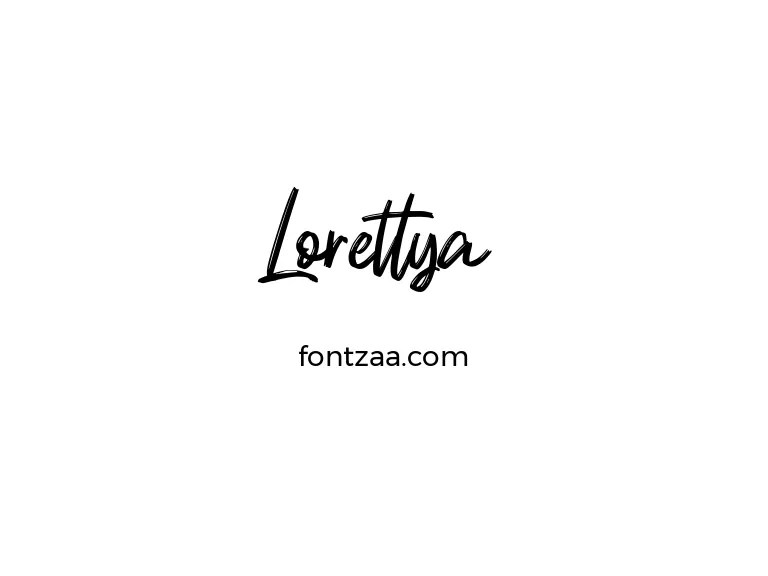
Lorettya Font introduces a elegant typographic style that can give creative projects a more individual appearance. Lorettya Font stands out through its individual shapes and can become an important visual element in creative display work. The typeface can change considerably depending on tracking, scale, alignment, background and surrounding imagery. Different color combinations can make the same font feel subtle, energetic, premium or highly decorative. Testing several arrangements before choosing the final version can reveal which characteristics of the typeface work best. Designers may explore it across invitations, wedding stationery, signatures, quotes and elegant branding, depending on the tone and requirements of the project. Keeping secondary typography simple often allows the distinctive qualities of the main font to remain more visible. Previewing the final layout on both large and small screens helps identify spacing and readability problems early. Source metadata currently associates the font with Weape Studio. Current license information is shown as Free for personal use; checking the original documentation is recommended before client or commercial work. Experimenting directly in the intended design is usually the best way to judge whether the typeface suits the project.
Lorettya Font brings a elegant personality to typography and gives designers a flexible starting point for headlines, branding and promotional layouts. Different color combinations can make the same font feel subtle, energetic, premium or highly decorative. Its letter shapes become especially noticeable at larger sizes, where spacing and proportions can be explored more clearly. The typeface can change considerably depending on tracking, scale, alignment, background and surrounding imagery. Possible applications include invitations, wedding stationery, signatures, quotes and elegant branding. A clean serif or sans serif companion can handle smaller text while this font remains focused on headlines and key messages. Keeping secondary typography simple often allows the distinctive qualities of the main font to remain more visible. Source metadata currently associates the font with Weape Studio. License details are currently listed as Free for personal use. Users should verify the supplied documentation before using the font in products or paid projects. Its final appearance will depend heavily on the surrounding colors, imagery, spacing and supporting typography.
With its distinctive letterforms, Lorettya Font can introduce a elegant character into digital and print projects. Testing several arrangements before choosing the final version can reveal which characteristics of the typeface work best. The typeface can change considerably depending on tracking, scale, alignment, background and surrounding imagery. Its letter shapes become especially noticeable at larger sizes, where spacing and proportions can be explored more clearly. The font can be considered for projects such as invitations, wedding stationery, signatures, quotes and elegant branding. Print and digital layouts may require different sizing and spacing, so testing the actual output dimensions is recommended. Previewing the final layout on both large and small screens helps identify spacing and readability problems early. Source metadata currently associates the font with Weape Studio. License details are currently listed as Free for personal use. Users should verify the supplied documentation before using the font in products or paid projects. Experimenting directly in the intended design is usually the best way to judge whether the typeface suits the project.
Lorettya Font Family
The Lorettya Font Family gives designers a flexible display option that can be adapted through changes in size, spacing, alignment and color. For projects that need typography with a stronger identity, Lorettya Font offers a elegant direction suited to font-family exploration. Different color combinations can make the same font feel subtle, energetic, premium or highly decorative. Its letter shapes become especially noticeable at larger sizes, where spacing and proportions can be explored more clearly. The font can work as the primary visual element in a minimal layout or as part of a more detailed composition. Creative uses may range from invitations, wedding stationery, signatures, quotes and elegant branding, with different results depending on scale and layout. Keeping secondary typography simple often allows the distinctive qualities of the main font to remain more visible. Previewing the final layout on both large and small screens helps identify spacing and readability problems early. The designer or publisher information available for this typeface is Weape Studio. The listed license is Free for personal use, although users should still review the original font package before commercial use. Its final appearance will depend heavily on the surrounding colors, imagery, spacing and supporting typography.
| Designer | Weape Studio |
Lorettya Font for Logo and Branding Design
The visual character of Lorettya Font makes it an interesting choice for designers working on logos, wordmarks and visual identity systems. The typeface can change considerably depending on tracking, scale, alignment, background and surrounding imagery. The font can work as the primary visual element in a minimal layout or as part of a more detailed composition. Different color combinations can make the same font feel subtle, energetic, premium or highly decorative. Designers may explore it across invitations, wedding stationery, signatures, quotes and elegant branding, depending on the tone and requirements of the project. Designers should evaluate the typeface inside the real project because a standalone preview cannot show every possible visual combination. For layouts containing longer information, pairing it with a simpler supporting typeface can improve readability and hierarchy. The designer or publisher information available for this typeface is Weape Studio. Current license information is shown as Free for personal use; checking the original documentation is recommended before client or commercial work. A few quick layout variations can help determine where the font creates the strongest visual result.
For projects that need typography with a stronger identity, Lorettya Font offers a elegant direction suited to discovering alternatives and related typography. Its letter shapes become especially noticeable at larger sizes, where spacing and proportions can be explored more clearly. Different color combinations can make the same font feel subtle, energetic, premium or highly decorative. The typeface can change considerably depending on tracking, scale, alignment, background and surrounding imagery. Possible applications include invitations, wedding stationery, signatures, quotes and elegant branding. Previewing the final layout on both large and small screens helps identify spacing and readability problems early. Designers should evaluate the typeface inside the real project because a standalone preview cannot show every possible visual combination. Source metadata currently associates the font with Weape Studio. Current license information is shown as Free for personal use; checking the original documentation is recommended before client or commercial work. Experimenting directly in the intended design is usually the best way to judge whether the typeface suits the project. Explore more typography on Fontzaa or browse the 100% Free Fonts collection.
Social Media Ideas With Lorettya Font
For projects that need typography with a stronger identity, Lorettya Font offers a elegant direction suited to posters, campaigns, thumbnails and promotional content. Its letter shapes become especially noticeable at larger sizes, where spacing and proportions can be explored more clearly. Different color combinations can make the same font feel subtle, energetic, premium or highly decorative. The typeface can change considerably depending on tracking, scale, alignment, background and surrounding imagery. Creative uses may range from invitations, wedding stationery, signatures, quotes and elegant branding, with different results depending on scale and layout. A clean serif or sans serif companion can handle smaller text while this font remains focused on headlines and key messages. Designers should evaluate the typeface inside the real project because a standalone preview cannot show every possible visual combination. According to the available font information, the typeface is associated with Weape Studio. The available licensing label is Free for personal use, but redistribution and commercial permissions should always be confirmed from the original source. The most effective treatment will vary by project, so designers should compare several versions before finalizing the artwork.
Where to Use Lorettya Font
With its distinctive letterforms, Lorettya Font can introduce a elegant character into practical ways designers can use the typeface. Its letter shapes become especially noticeable at larger sizes, where spacing and proportions can be explored more clearly. The typeface can change considerably depending on tracking, scale, alignment, background and surrounding imagery. The font can work as the primary visual element in a minimal layout or as part of a more detailed composition. Creative uses may range from invitations, wedding stationery, signatures, quotes and elegant branding, with different results depending on scale and layout. Keeping secondary typography simple often allows the distinctive qualities of the main font to remain more visible. Previewing the final layout on both large and small screens helps identify spacing and readability problems early. Source metadata currently associates the font with Weape Studio. The available licensing label is Free for personal use, but redistribution and commercial permissions should always be confirmed from the original source. Experimenting directly in the intended design is usually the best way to judge whether the typeface suits the project.
Tips for Better Results With Lorettya Font
Lorettya Font stands out through its individual shapes and can become an important visual element in spacing, contrast, scale and layout decisions. The typeface can change considerably depending on tracking, scale, alignment, background and surrounding imagery. Testing several arrangements before choosing the final version can reveal which characteristics of the typeface work best. The font can work as the primary visual element in a minimal layout or as part of a more detailed composition. Possible applications include invitations, wedding stationery, signatures, quotes and elegant branding. Designers should evaluate the typeface inside the real project because a standalone preview cannot show every possible visual combination. For layouts containing longer information, pairing it with a simpler supporting typeface can improve readability and hierarchy. According to the available font information, the typeface is associated with Weape Studio. The listed license is Free for personal use, although users should still review the original font package before commercial use. Experimenting directly in the intended design is usually the best way to judge whether the typeface suits the project.
Lorettya Font TTF and OTF Support
For projects that need typography with a stronger identity, Lorettya Font offers a elegant direction suited to TTF and OTF compatibility with design software. Different color combinations can make the same font feel subtle, energetic, premium or highly decorative. Using generous space around the lettering can help the details of the typeface remain visible instead of competing with other elements. The font can work as the primary visual element in a minimal layout or as part of a more detailed composition. Its display-focused appearance makes it worth testing in invitations, wedding stationery, signatures, quotes and elegant branding. Previewing the final layout on both large and small screens helps identify spacing and readability problems early. Designers should evaluate the typeface inside the real project because a standalone preview cannot show every possible visual combination. Source metadata currently associates the font with Weape Studio. The listed license is Free for personal use, although users should still review the original font package before commercial use. The most effective treatment will vary by project, so designers should compare several versions before finalizing the artwork. TTF and OTF are widely supported formats, although exact behavior can vary between applications and operating-system versions.